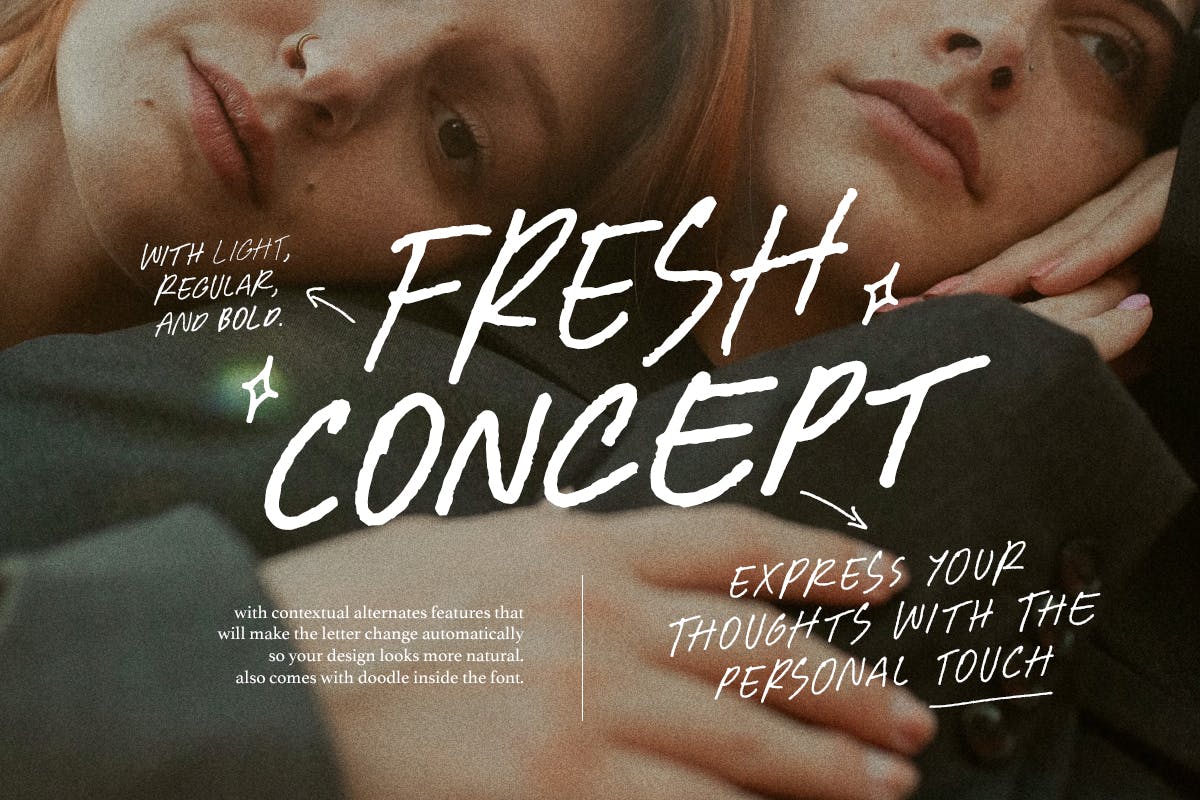
Fresh Concept - All Caps Handwritten Font
The Fresh Concept - All Caps Handwritten Font is perfect for innovative startup branding, creative agency logos, modern architectural signage, bold headline designs, contemporary poster graphics, trendy packaging systems, fresh social media campaigns, dynamic presentation headers, creative portfolio layouts, and cutting-edge advertising materials.
What makes the Fresh Concept - All Caps Handwritten Font so exciting is its dynamic combination of authentic handwritten character with bold all-caps energy that creates an irresistibly fresh and contemporary visual experience perfect for brands seeking to communicate innovation, creativity, and modern authenticity. This striking typeface features confident hand-lettered construction, energetic character flow, and fresh design elements that perfectly capture the essence of creative thinking and contemporary handcrafted appeal. The font's fresh personality and all-caps boldness make it an exceptional choice for innovative brands seeking to communicate originality, creative confidence, and authentic modern expression with memorable visual impact.
The Fresh Concept - All Caps Handwritten Font family includes creative variations and fresh alternates, featuring multiple character styles, dynamic connections, and contemporary design options. Each variation maintains the signature fresh appeal while offering different levels of creative expression and handwritten energy, giving designers extensive possibilities for crafting innovative communications and fresh brand personalities that stand out in today's competitive market.
This exceptional Fresh Concept - All Caps Handwritten Font Free Download represents the perfect contemporary typography solution for designers who want to infuse their projects with authentic creative energy and fresh modern handwritten style. Whether you're developing innovative brand identities, creating dynamic marketing materials, or designing contemporary creative content, this versatile fresh font delivers compelling results that resonate with audiences seeking genuine creativity and modern authenticity.
The confident handwritten characteristics of Fresh Concept - All Caps Handwritten Font showcase masterful contemporary typography design, with each letter carefully crafted to maintain natural flow while delivering bold visual impact and creative authenticity. The font's comprehensive character set includes all-caps letters, numerals, creative punctuation, and fresh symbols, ensuring complete functionality for diverse innovative projects and international creative applications.
Expertly designed for both digital and print creative applications, this outstanding font maintains its fresh handwritten character and contemporary energy across various sizes and formats. From large-scale creative installations to detailed branding elements, Fresh Concept - All Caps Handwritten Font adapts dynamically to any design challenge while preserving its distinctive fresh personality and modern handwritten appeal.